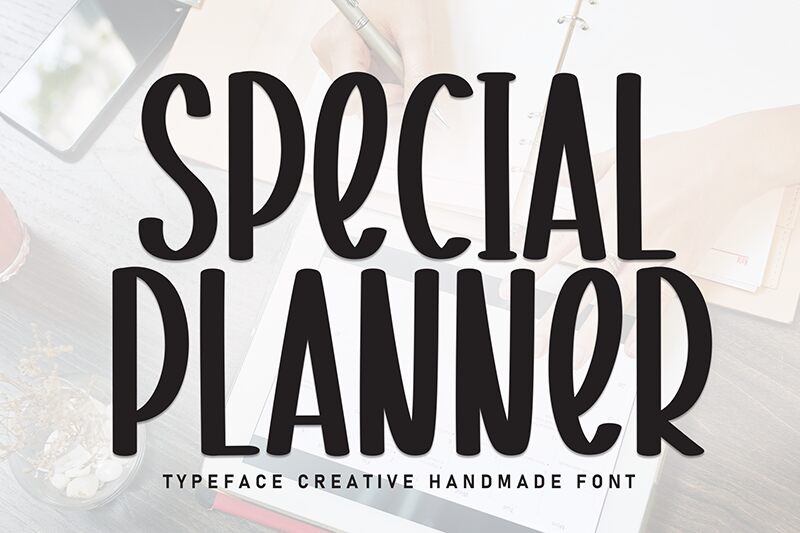
Special Planner
Special Planner font by Scratchones is a free handwritten font with a rounded appearance and condensed width. The artistic flair in this font comes from its expressive character and casual elegance, mixing smooth rounded strokes with slight imperfections. Minimal but eye-catching, it is a great fit for outstanding typography, texts, headlines or other short text such as business names and titles.
With its versatile hand-drawn feel, the font can be used freely in designing pleasant to read content like book cover titles, film posters and promotional presentations as well as packaging designs such as labels and even logos.